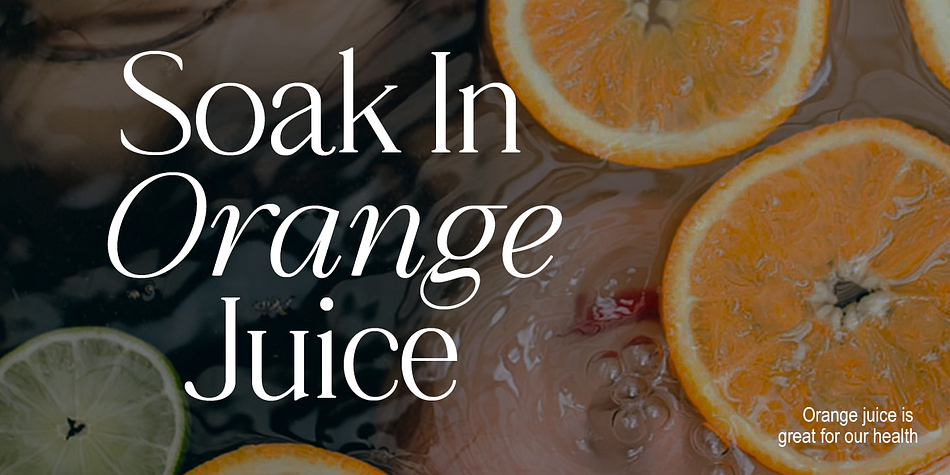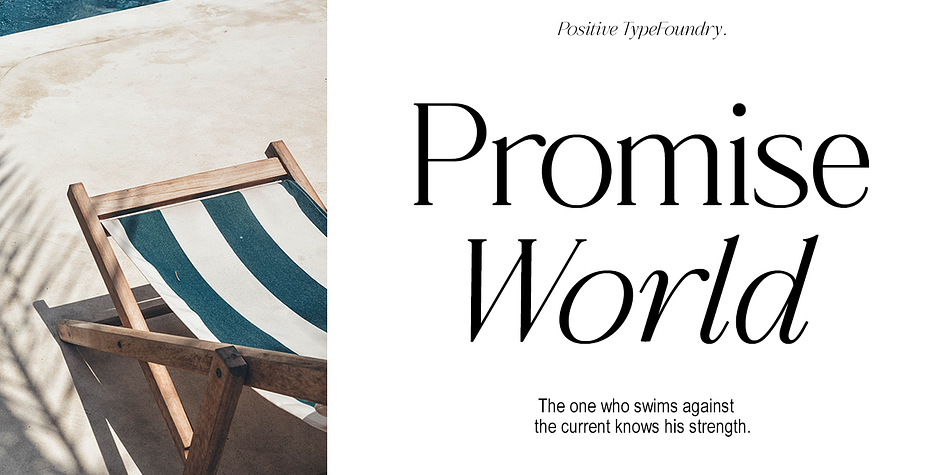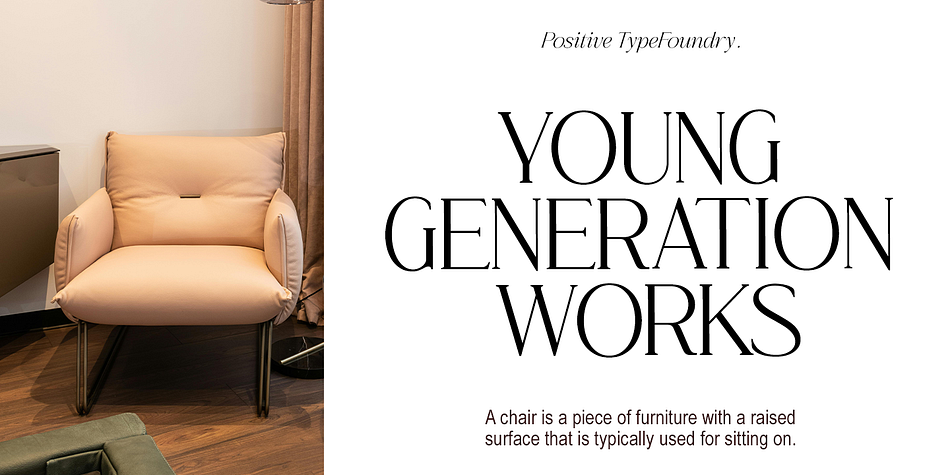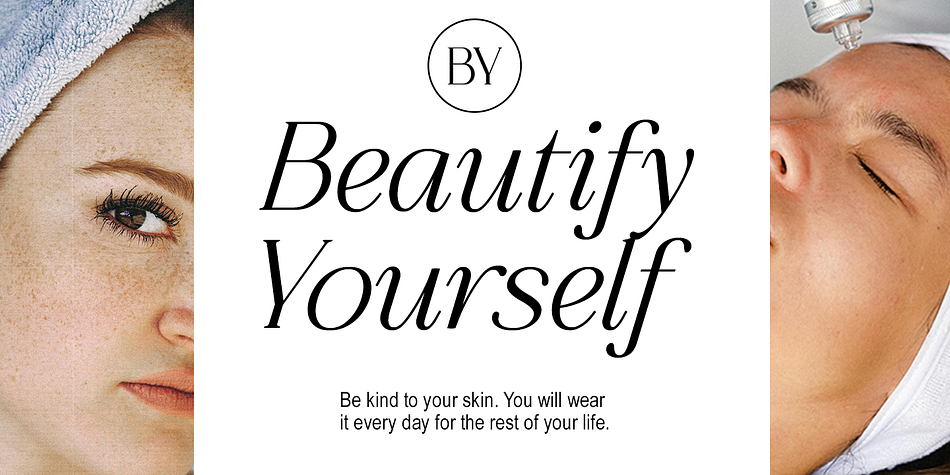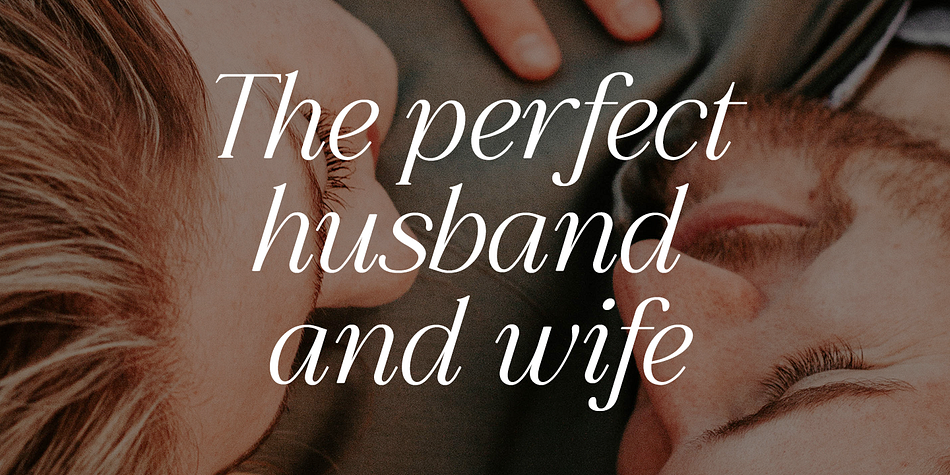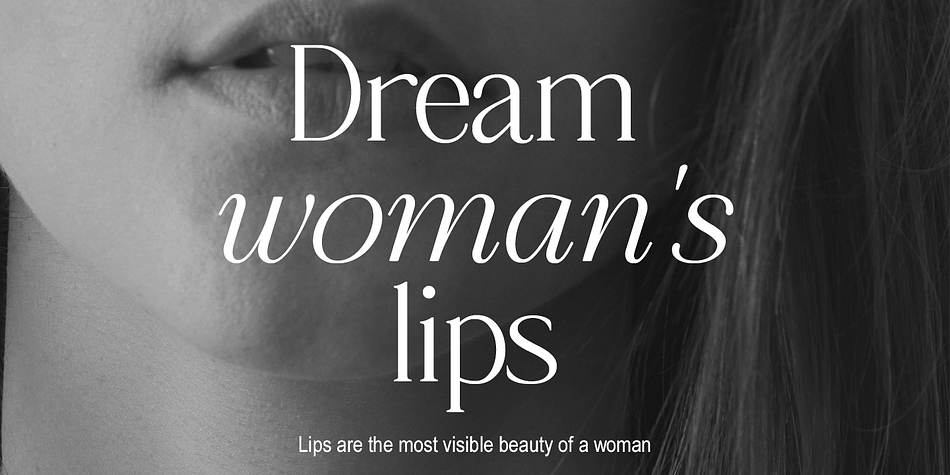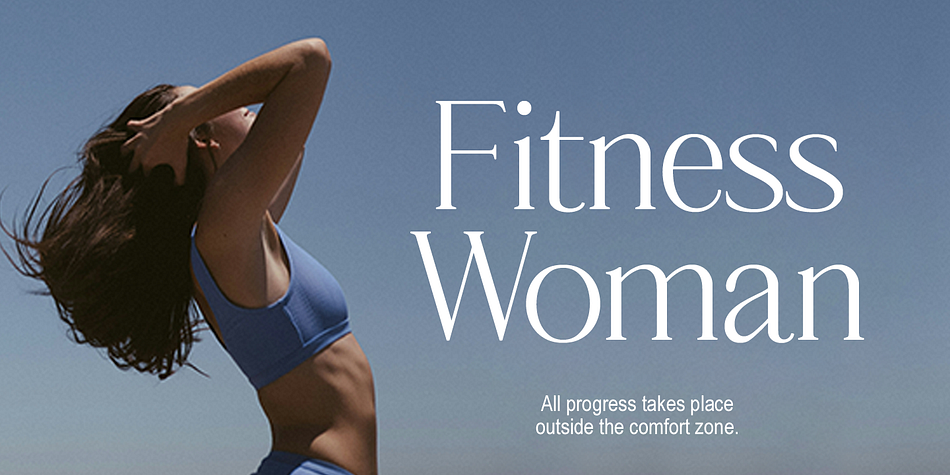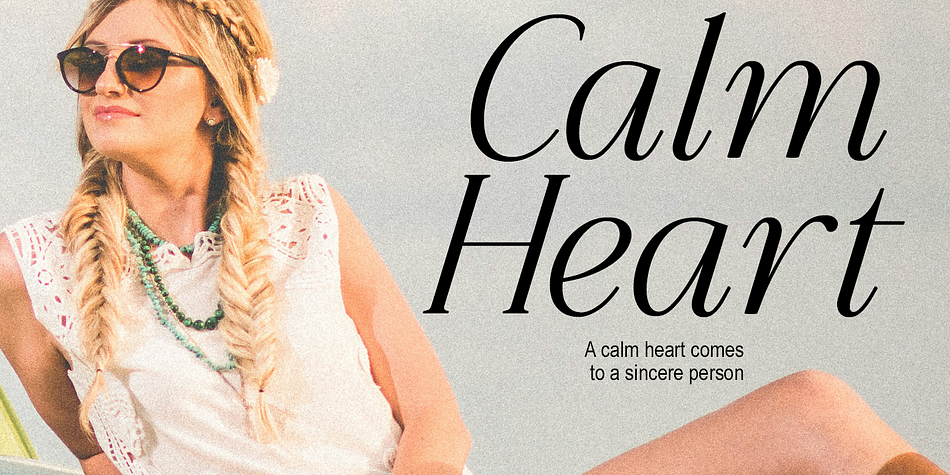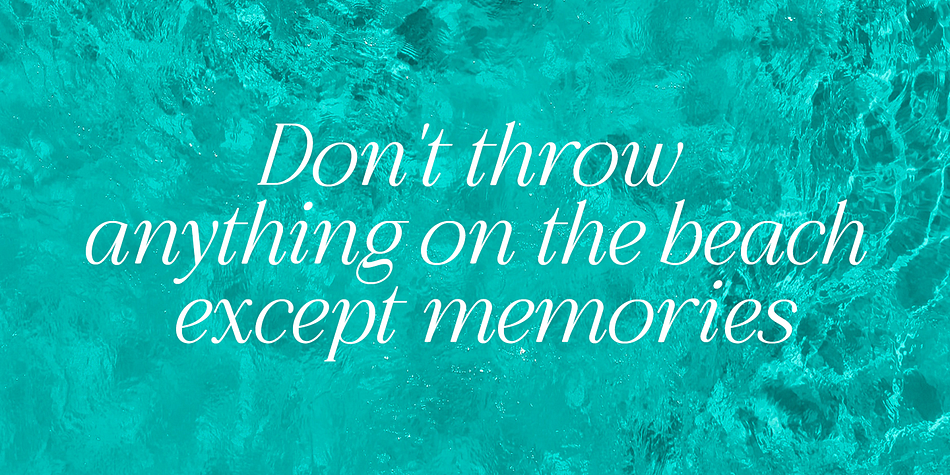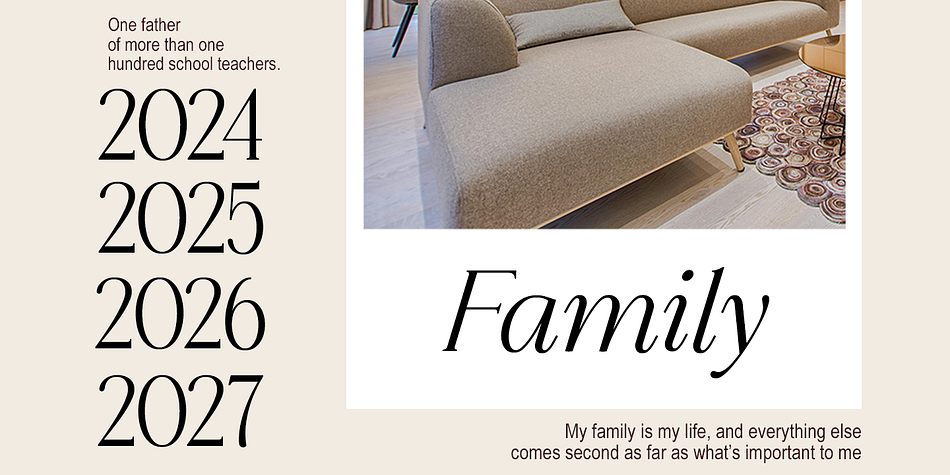
Gallant
Gallant is a serif font family. This typeface has two styles and was published by Positive TypeFoundry.
Introducing Gallant, a stunning typeface that combines the sleek and exotic characteristics of serif fonts with beautifully crafted ties, making it an ideal choice for creating elegant and sophisticated designs.
Gallant font is an elegant Regular and Italic serif typeface with fine details. This neat font can contribute to a modern and fashionable brand appeal.